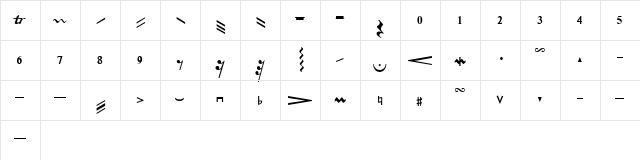
NWC Extra Ornaments v3 Regular
Design Context for NWC Extra Ornaments v3 Typeface
NWC Extra Ornaments v3 brings ornamental detail and strong personality to headlines and identities, where visual impact matters more than quiet functionality.
Font Pairing: Pair with a clean neutral sans-serif for body copy to let NWC Extra Ornaments v3's character lead without overwhelming the composition.
Pro Tip: Use NWC Extra Ornaments v3 exclusively at display sizes — it was designed to be seen, not read at length. Let a neutral companion handle body copy.